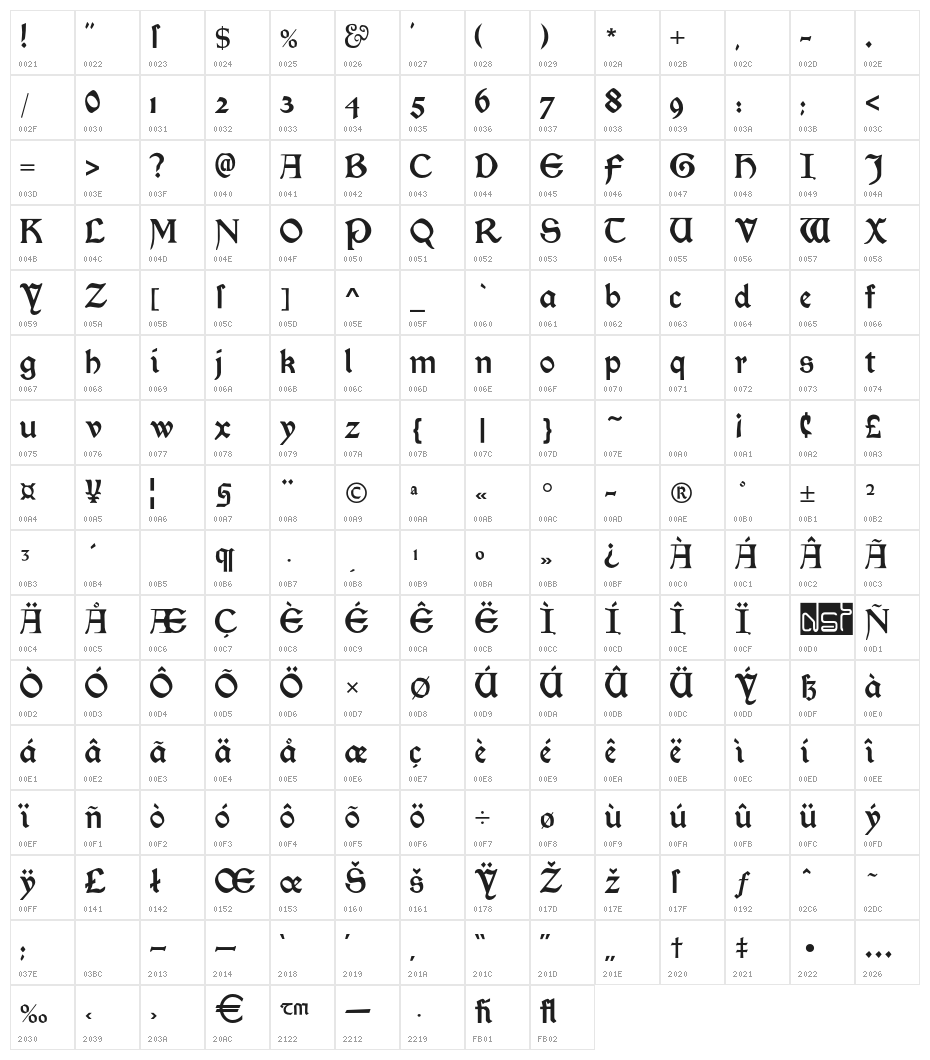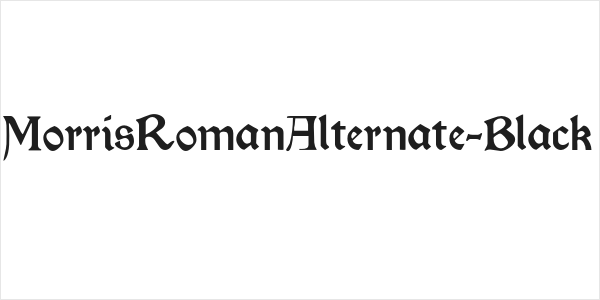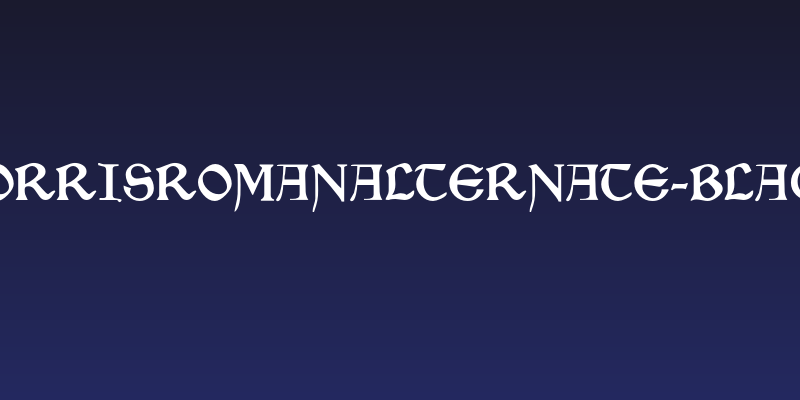
MorrisRomanAlternate-Black Font
MorrisRomanAlternate-Black Description
This font features a bold and striking design with a strong blackletter influence. The uppercase letters exhibit sharp, angular serifs and a distinctive medieval flair, while the lowercase letters maintain a consistent style with slightly rounded edges. The numerals are uniquely styled, echoing the historical aesthetic of the alphabet. Special characters are crafted with intricate details, enhancing the font's decorative appeal. Overall, the font exudes a sense of tradition and elegance, making it suitable for projects that require a touch of historical or gothic charm.